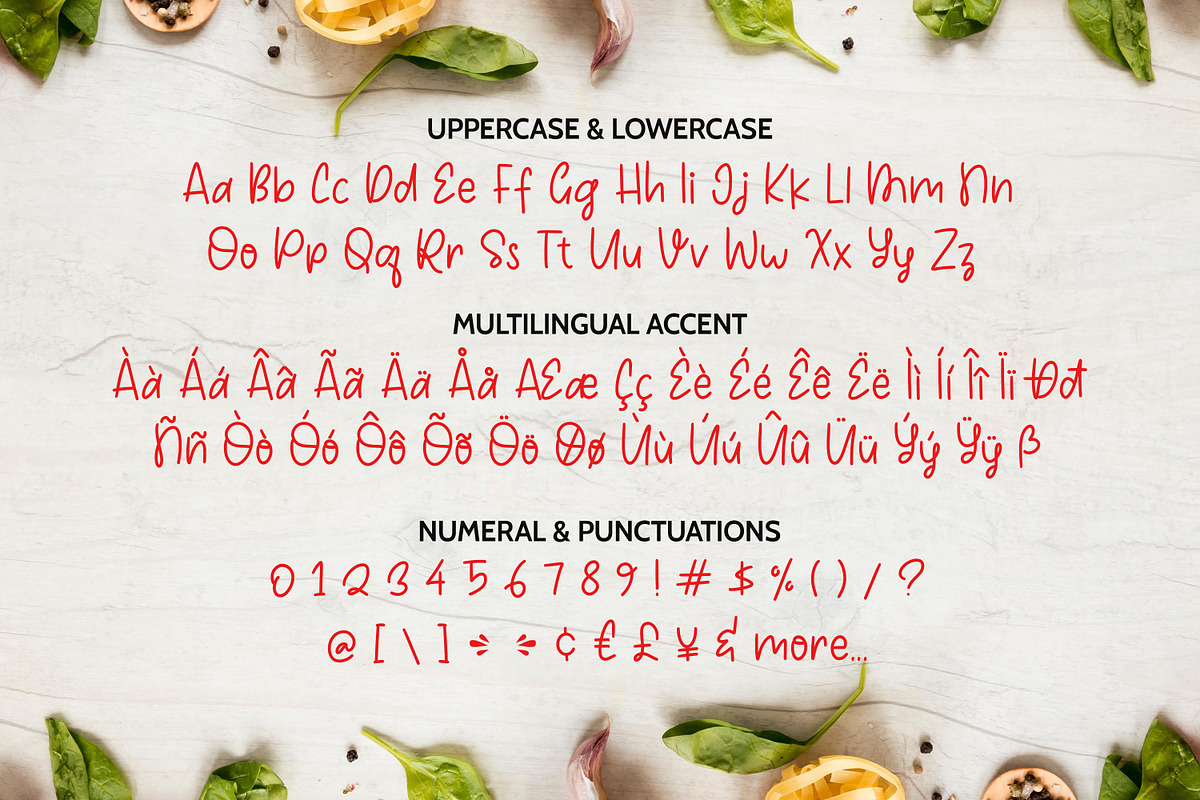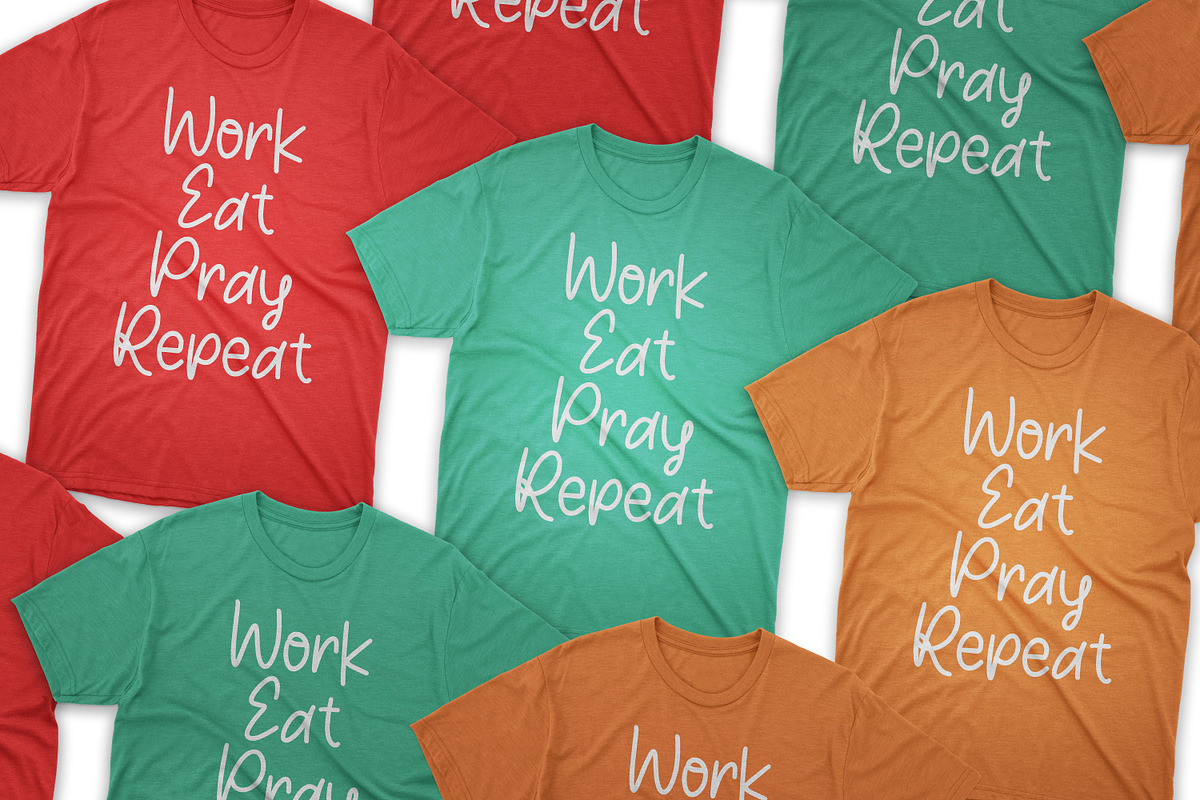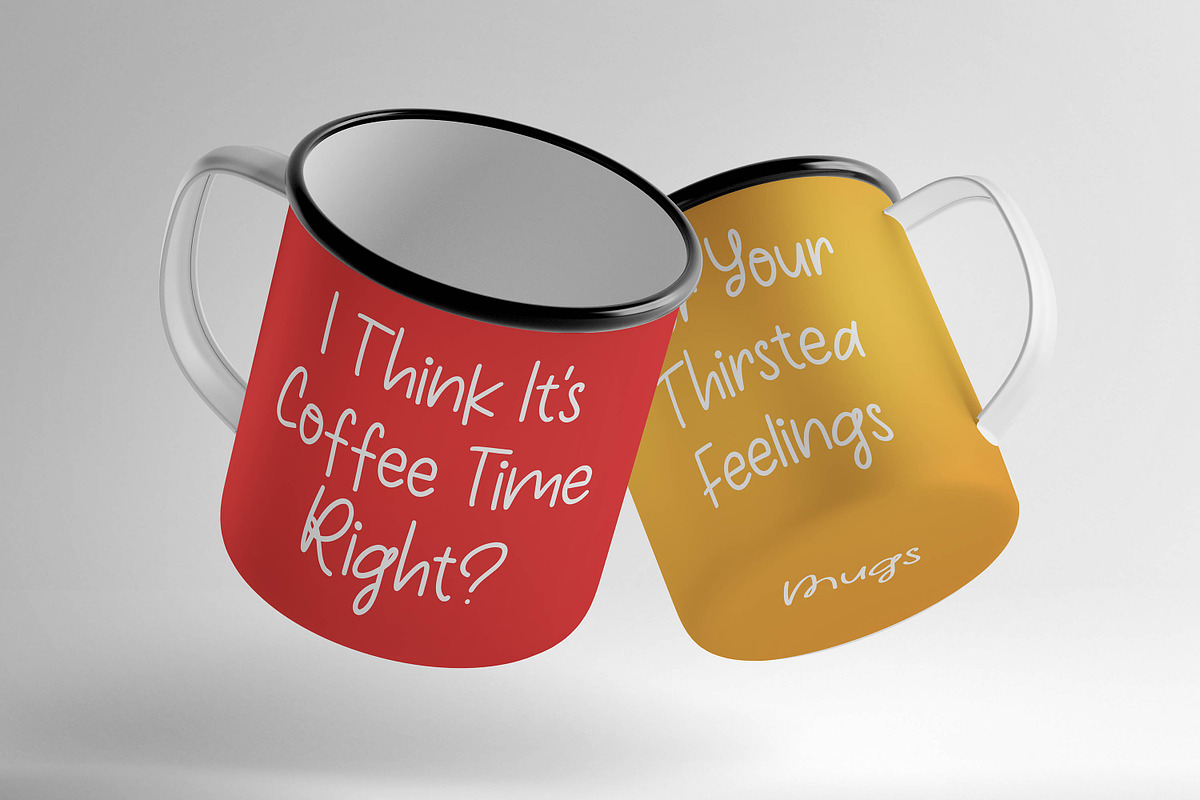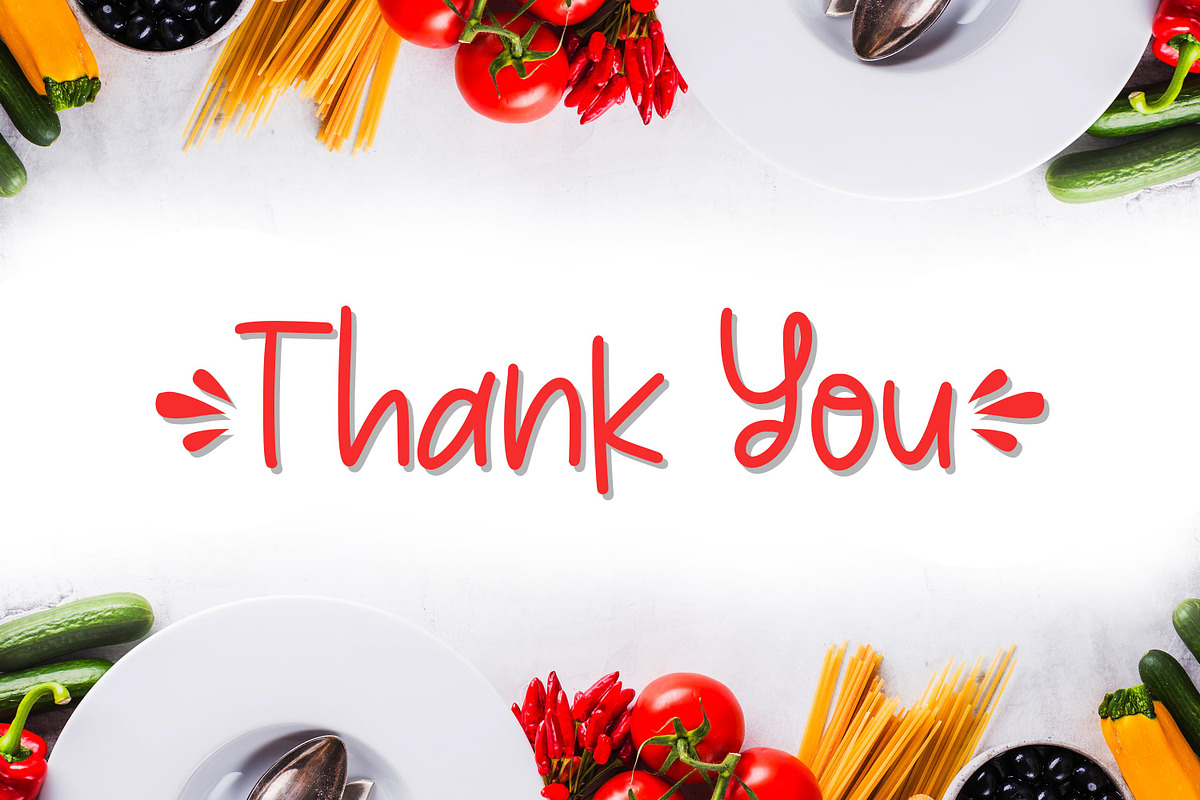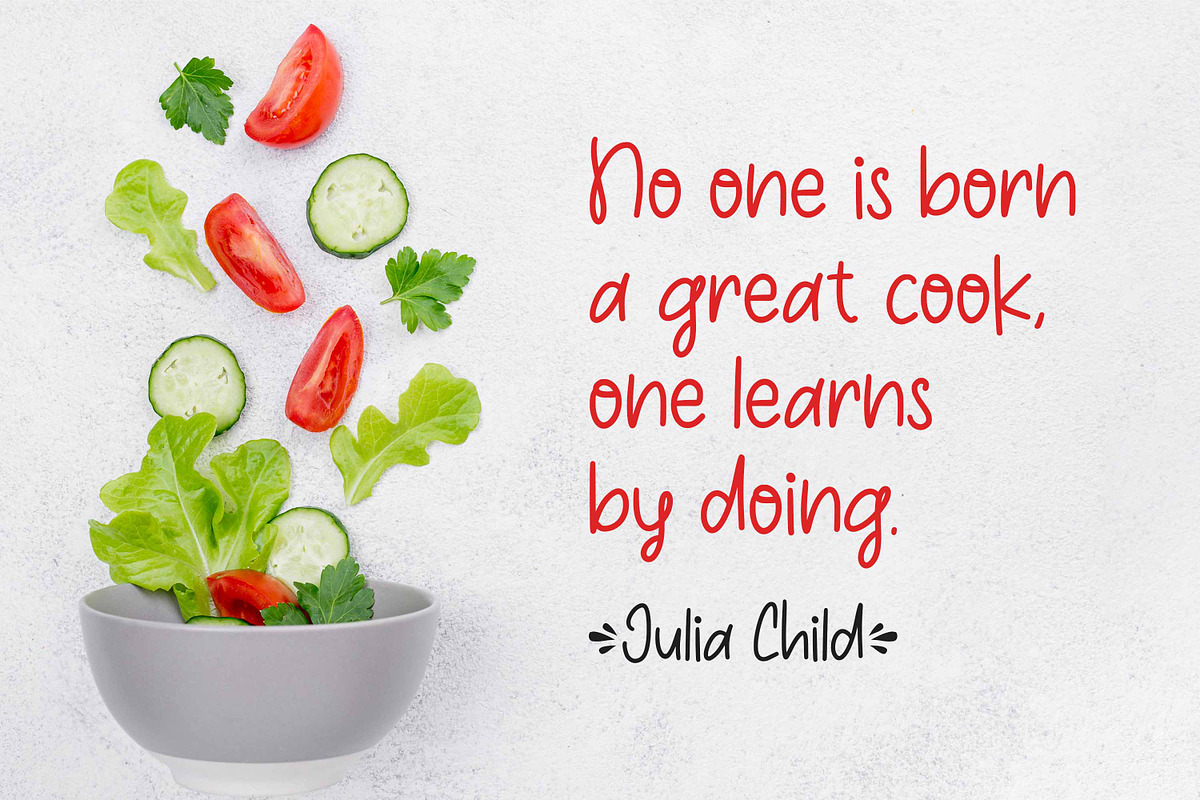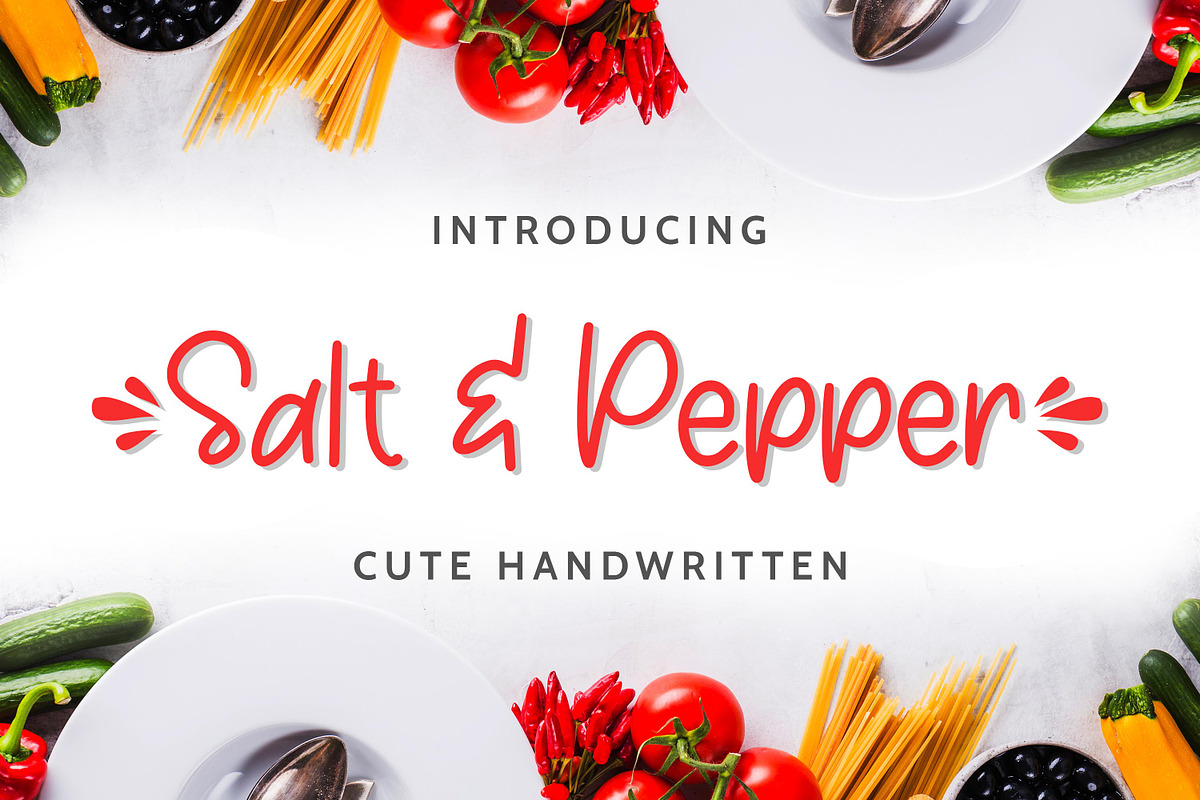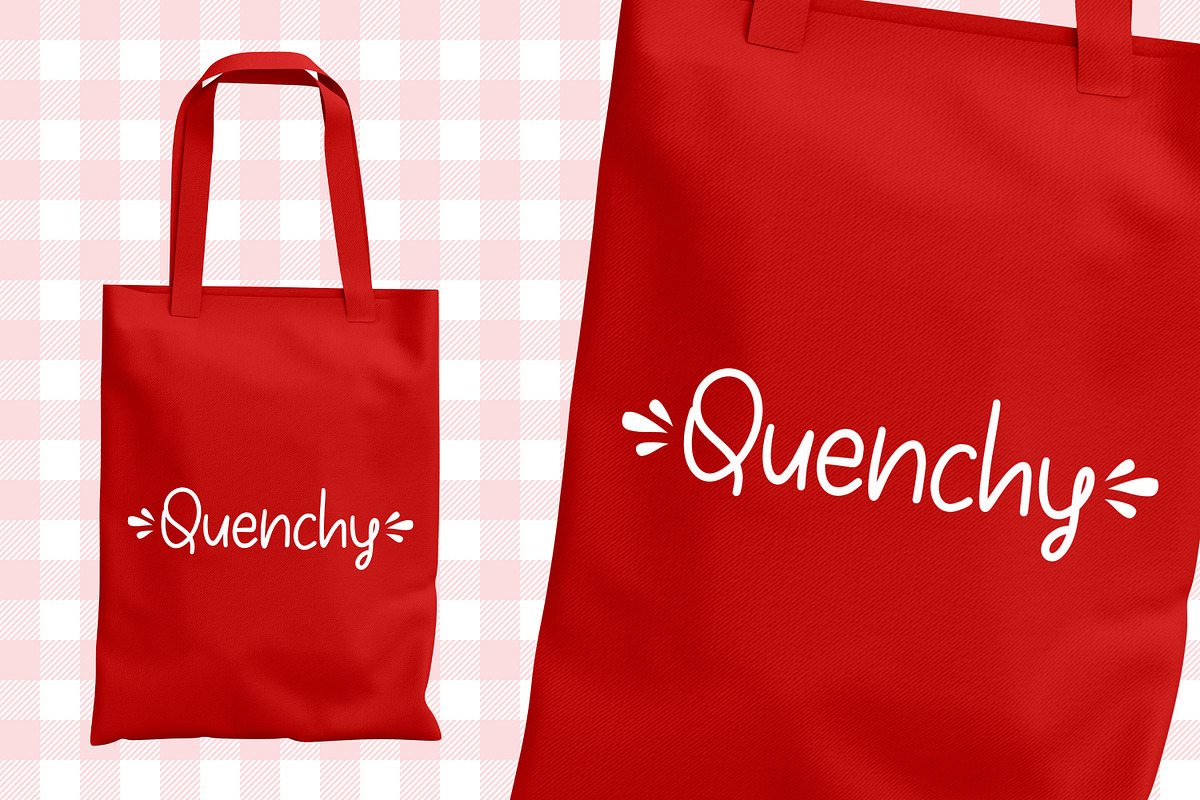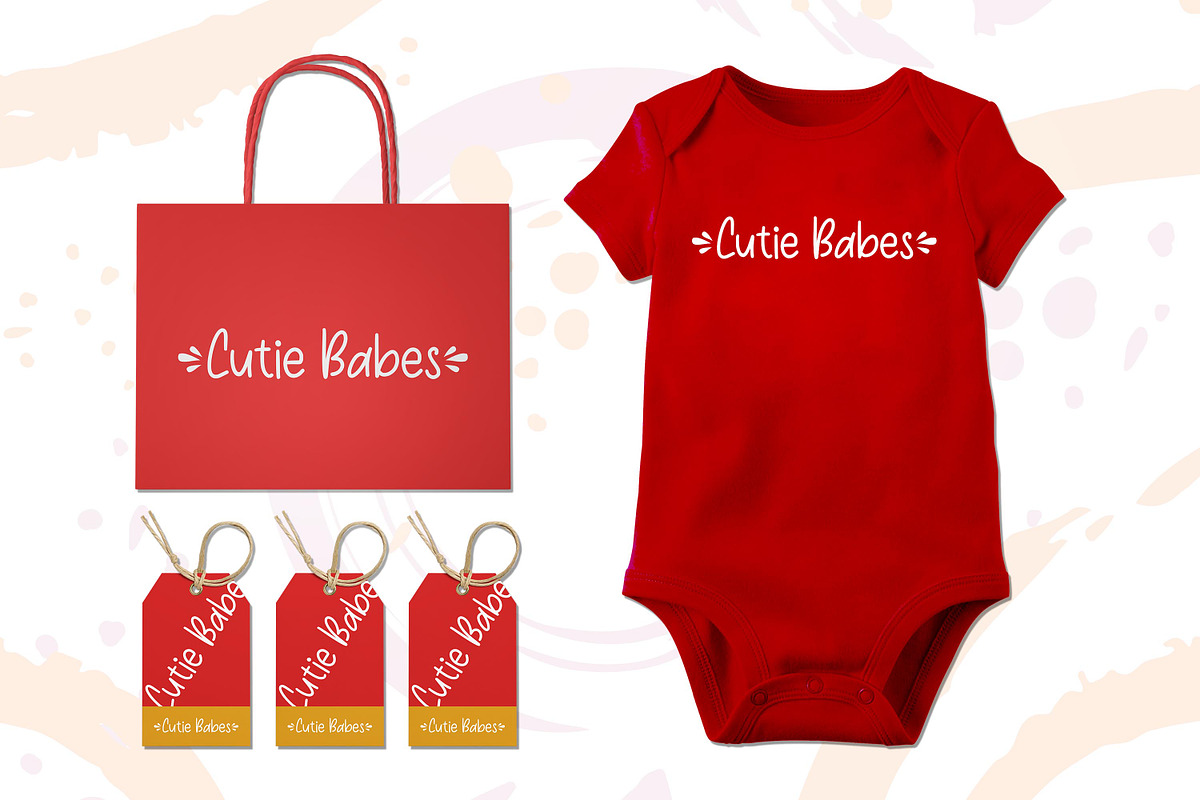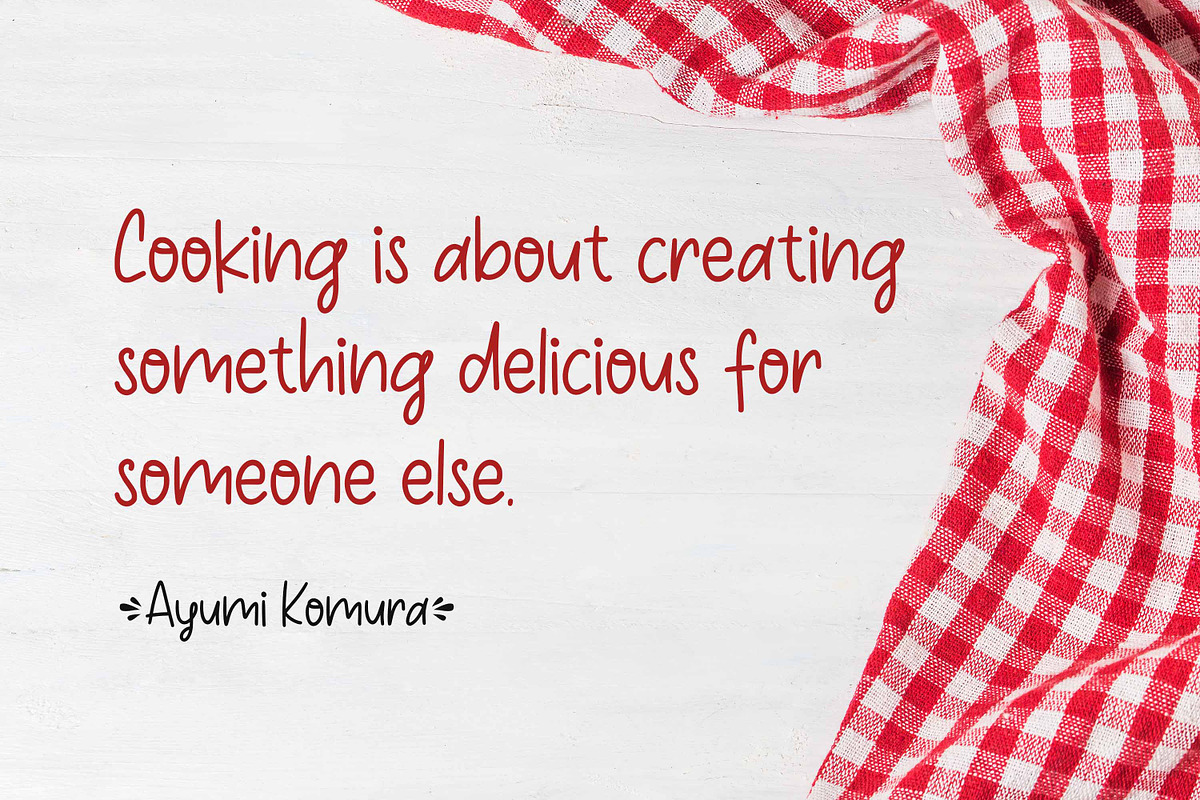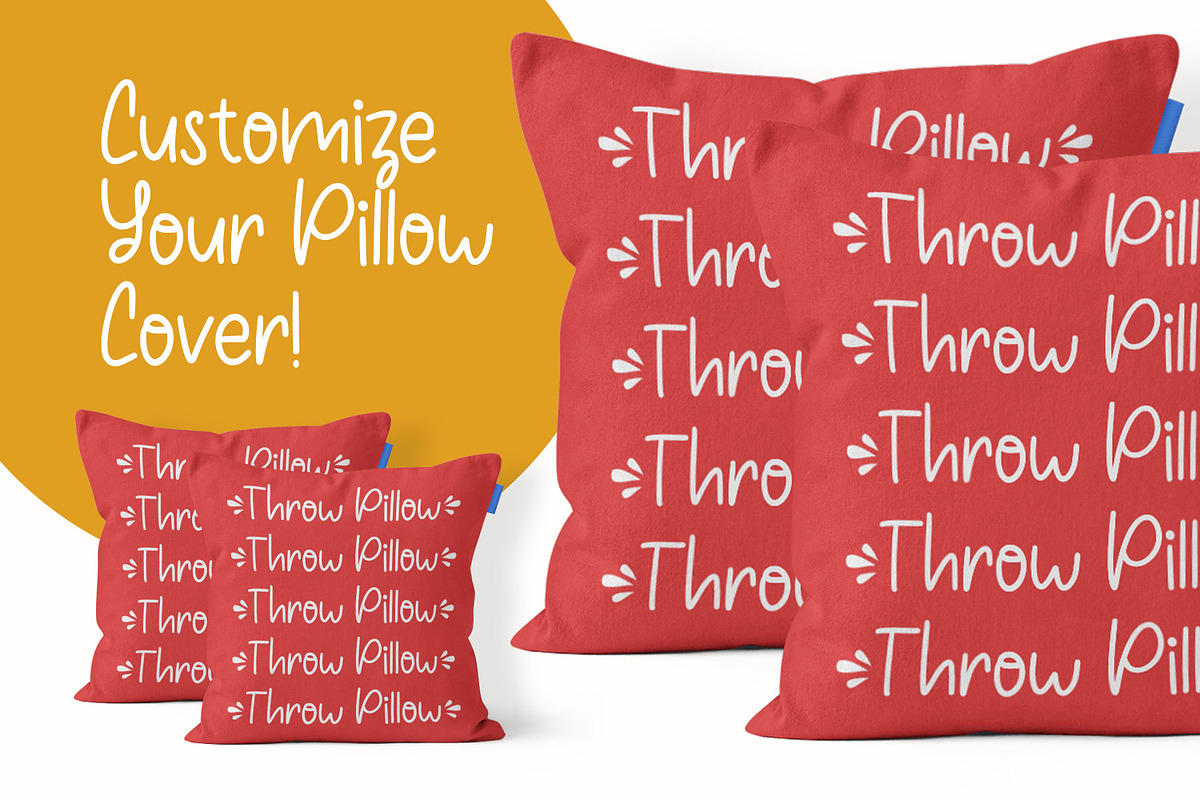
Salt & Pepper - Cute Handwritten
Salt & Pepper is cute handwritten, but also Crafty. This versatile script font has a wide range of applications ranging from greeting cards to kids’ crafts, and is guaranteed to add a sweet touch to your next design.